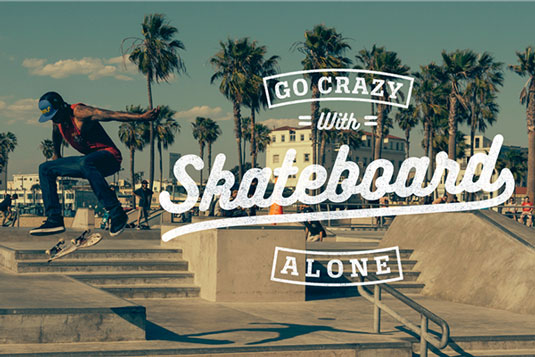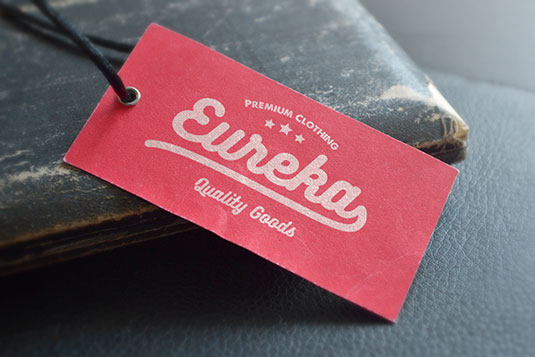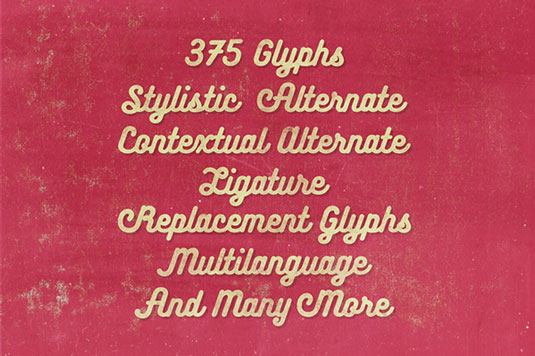
Font of the day: Bukhari Script
Bukhari Script from Mikrojihad Inc
Bukhari Script is a bold, monoline cursive font from Mikrojihad Inc. Created from a bold line with a computer mouse, Bukhari is great for adding a bit of vintage style to any design.